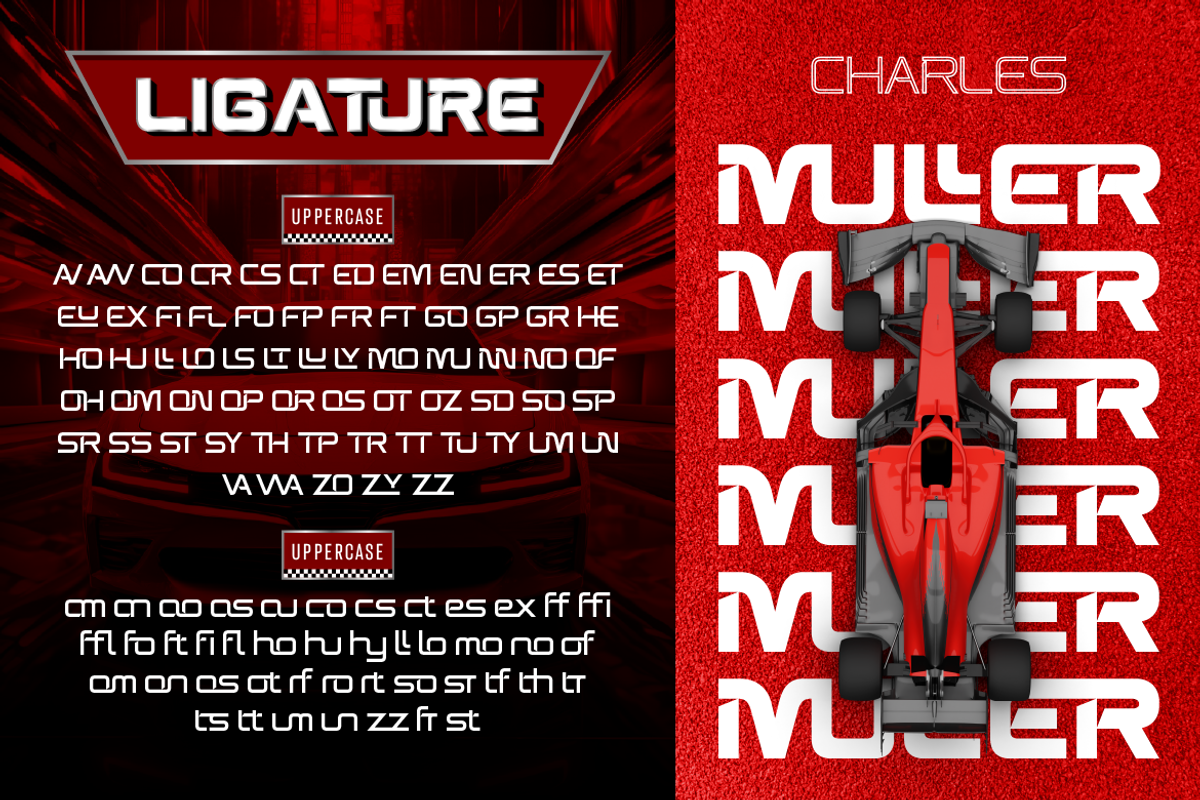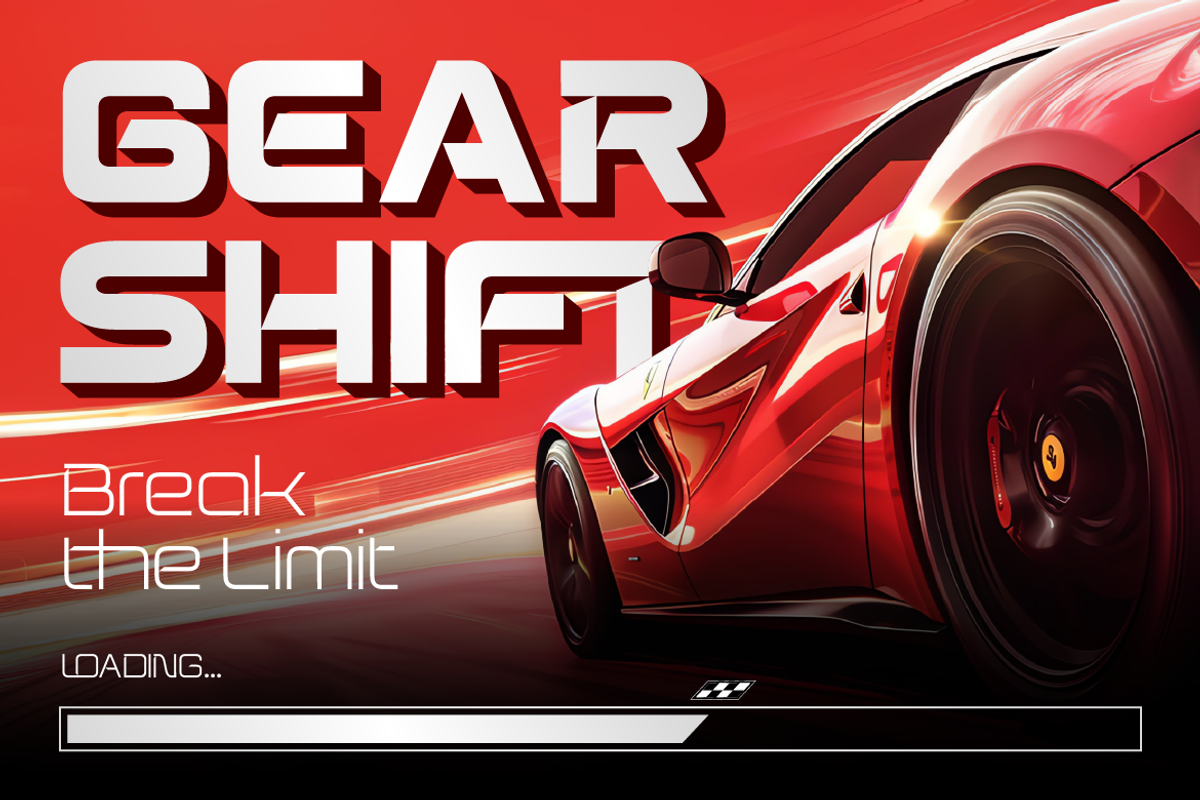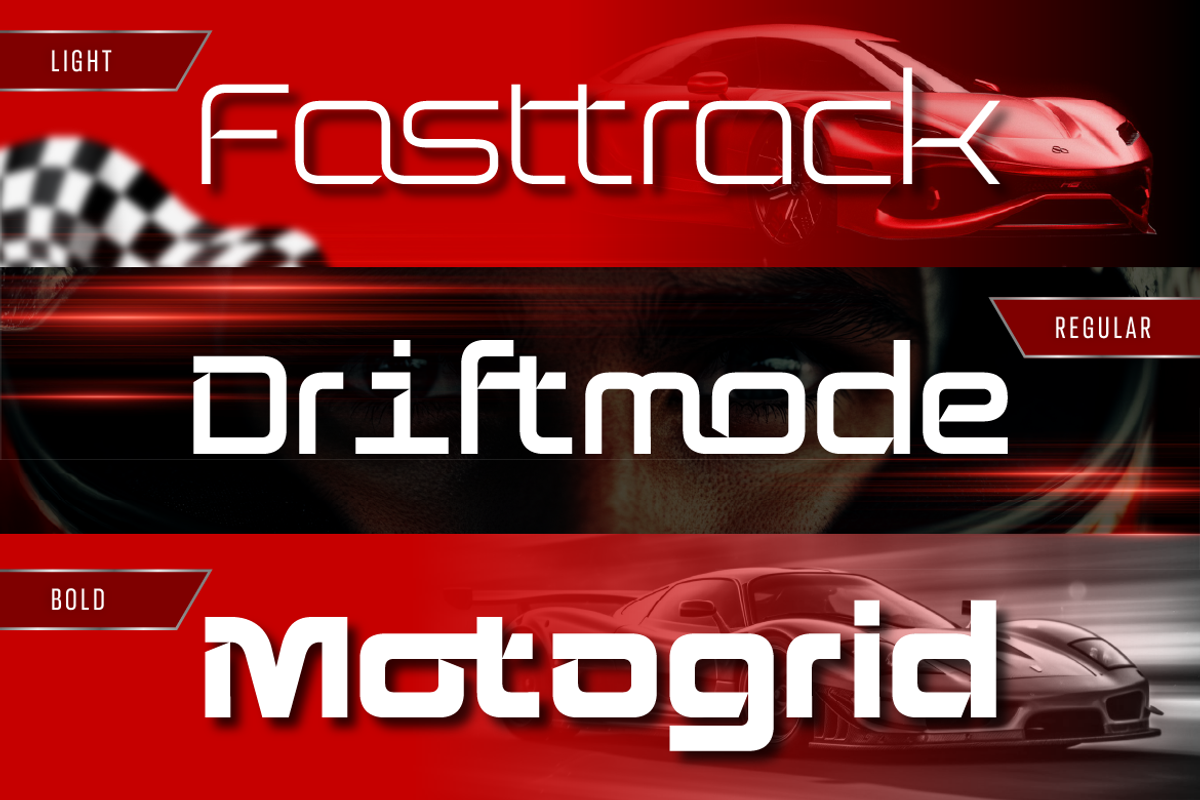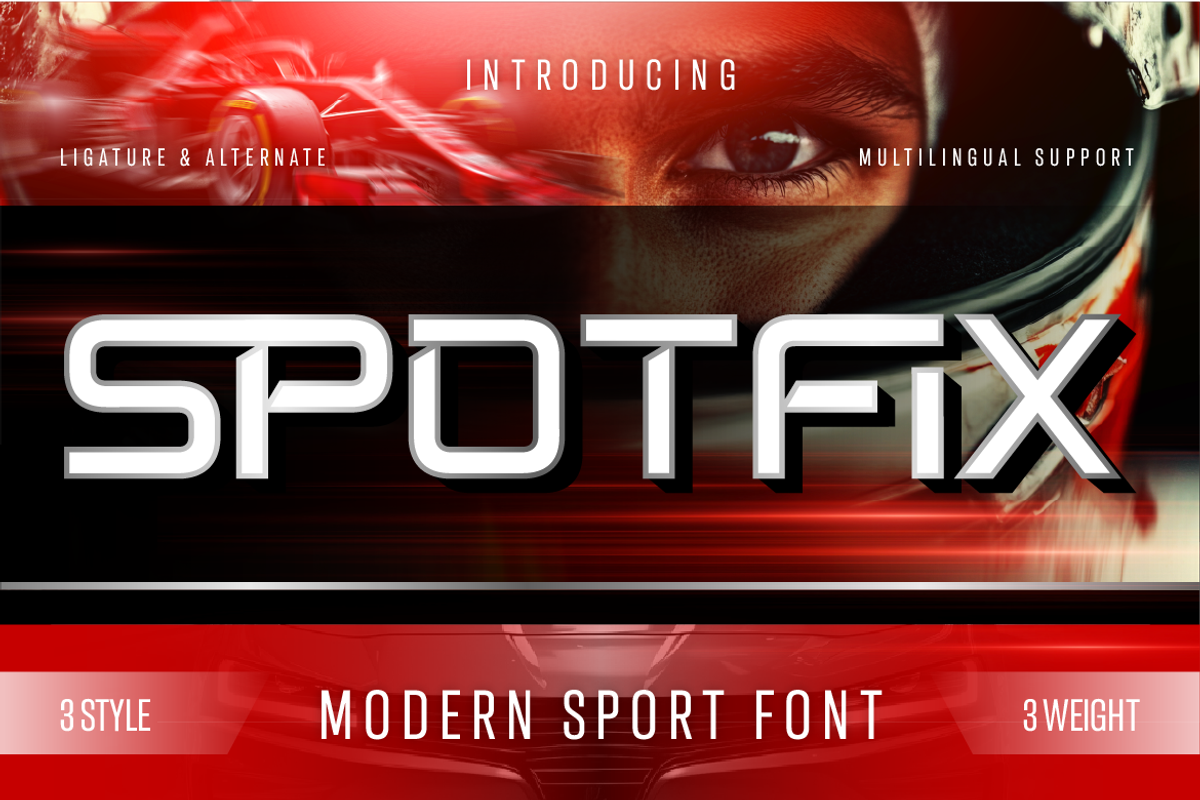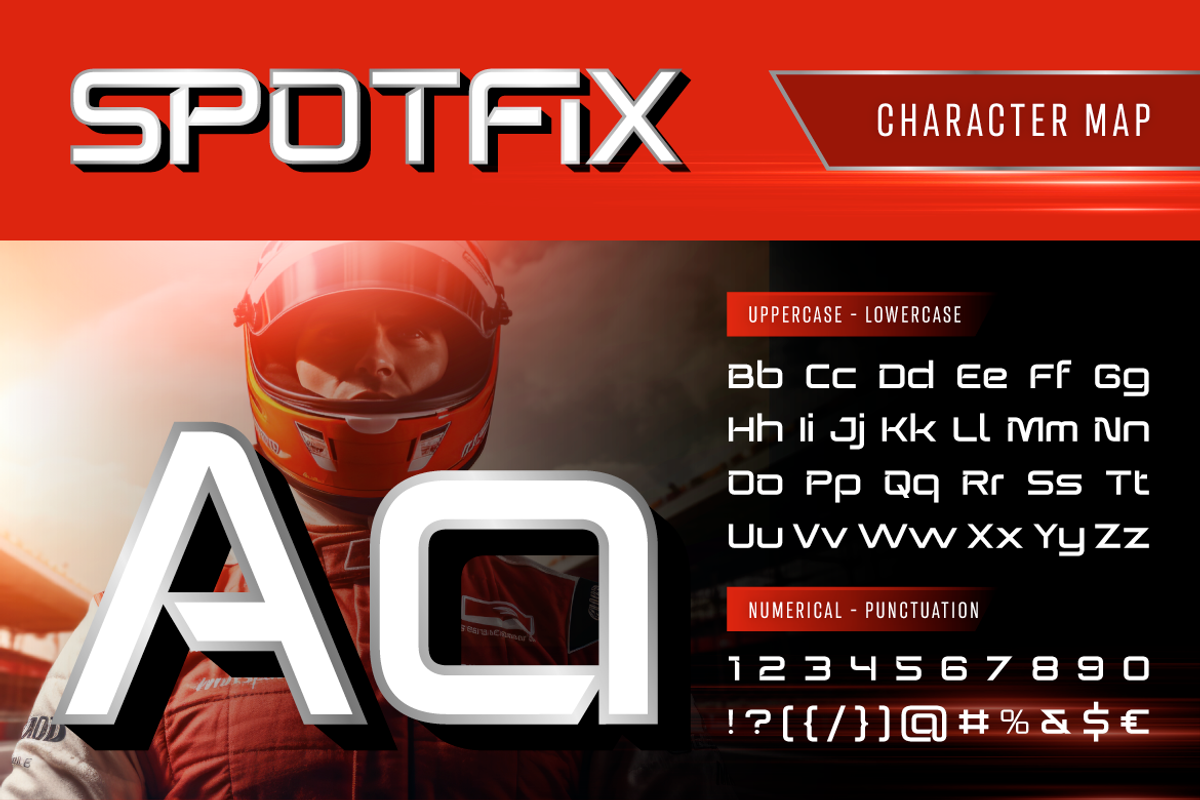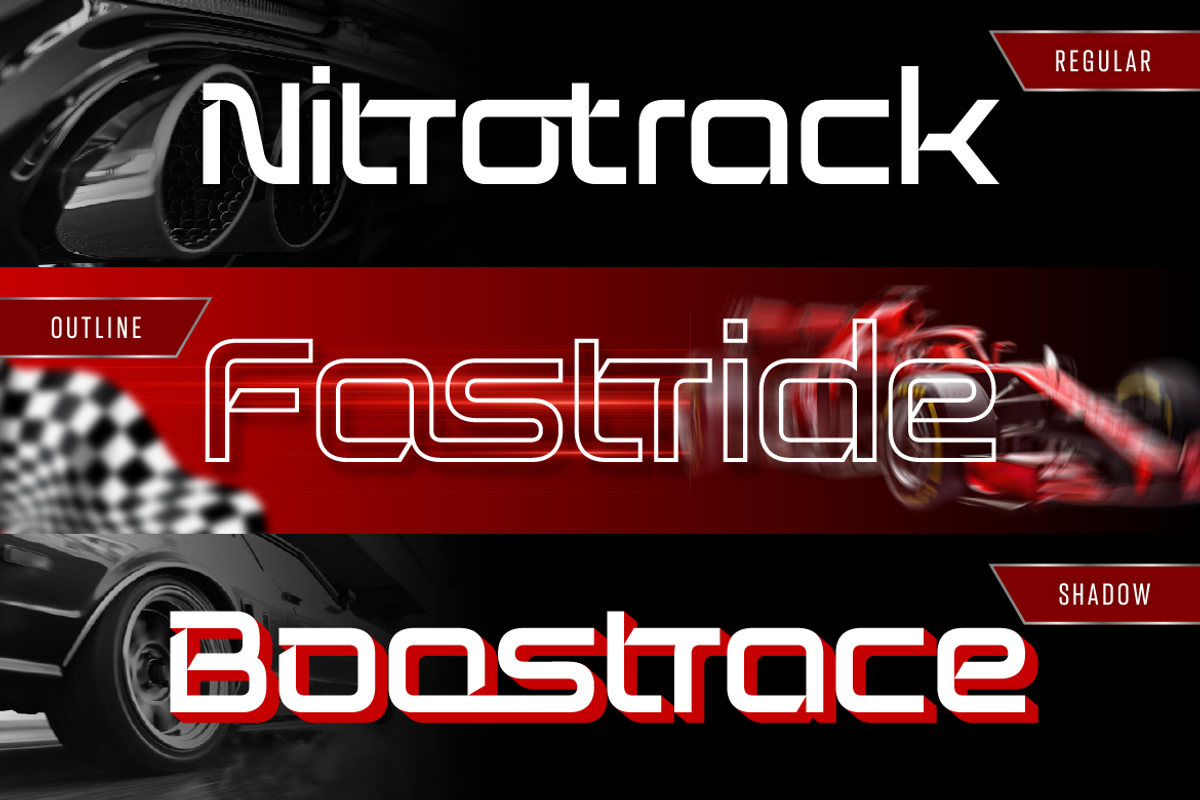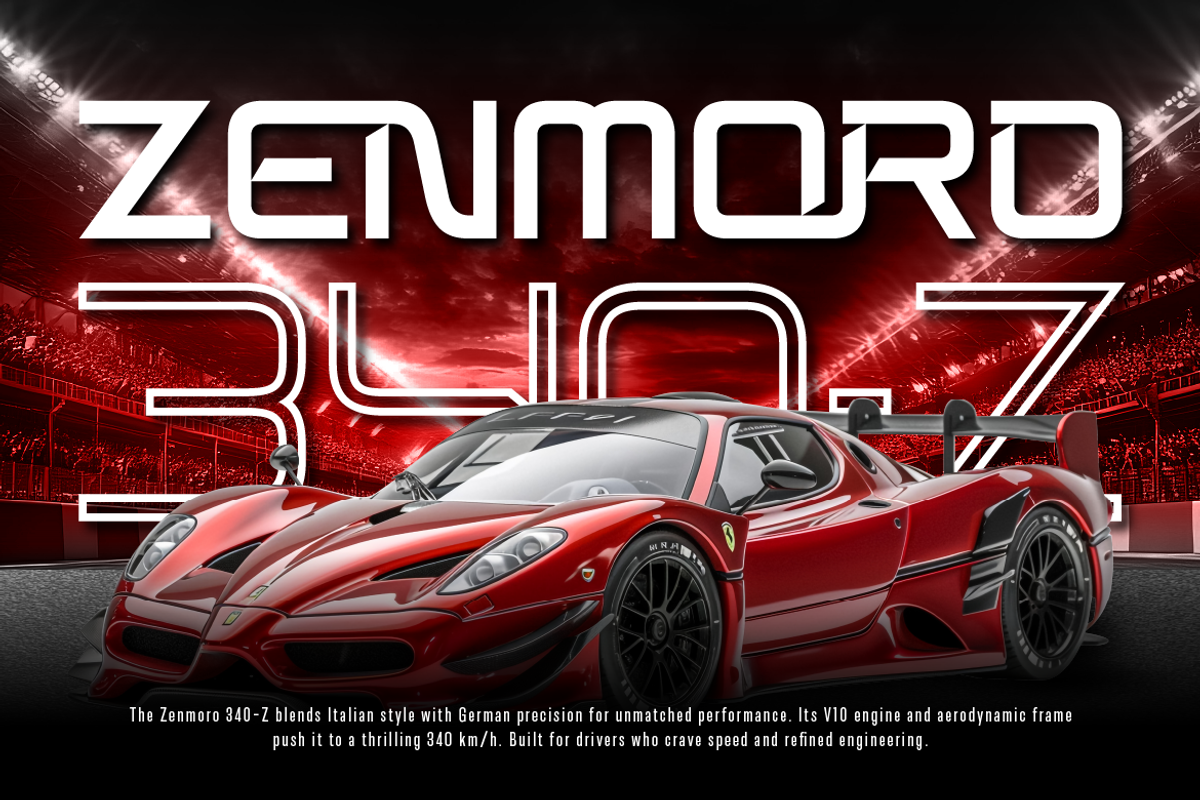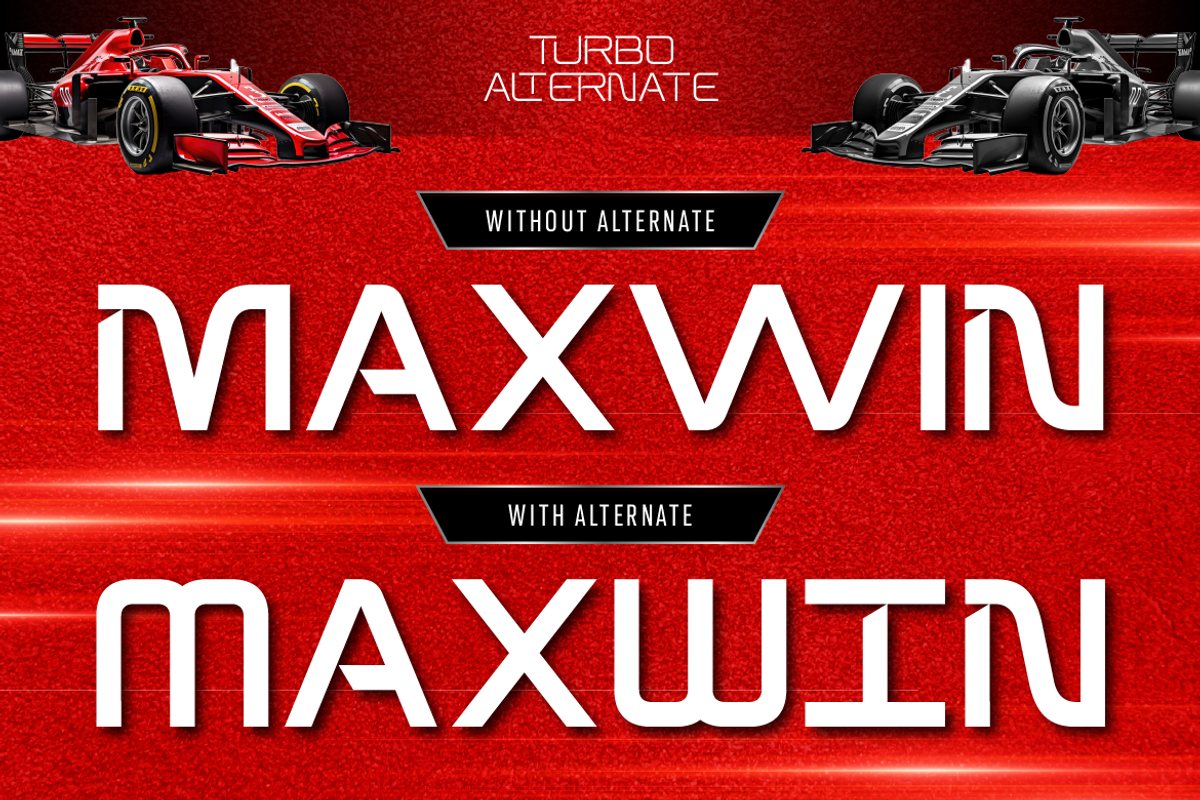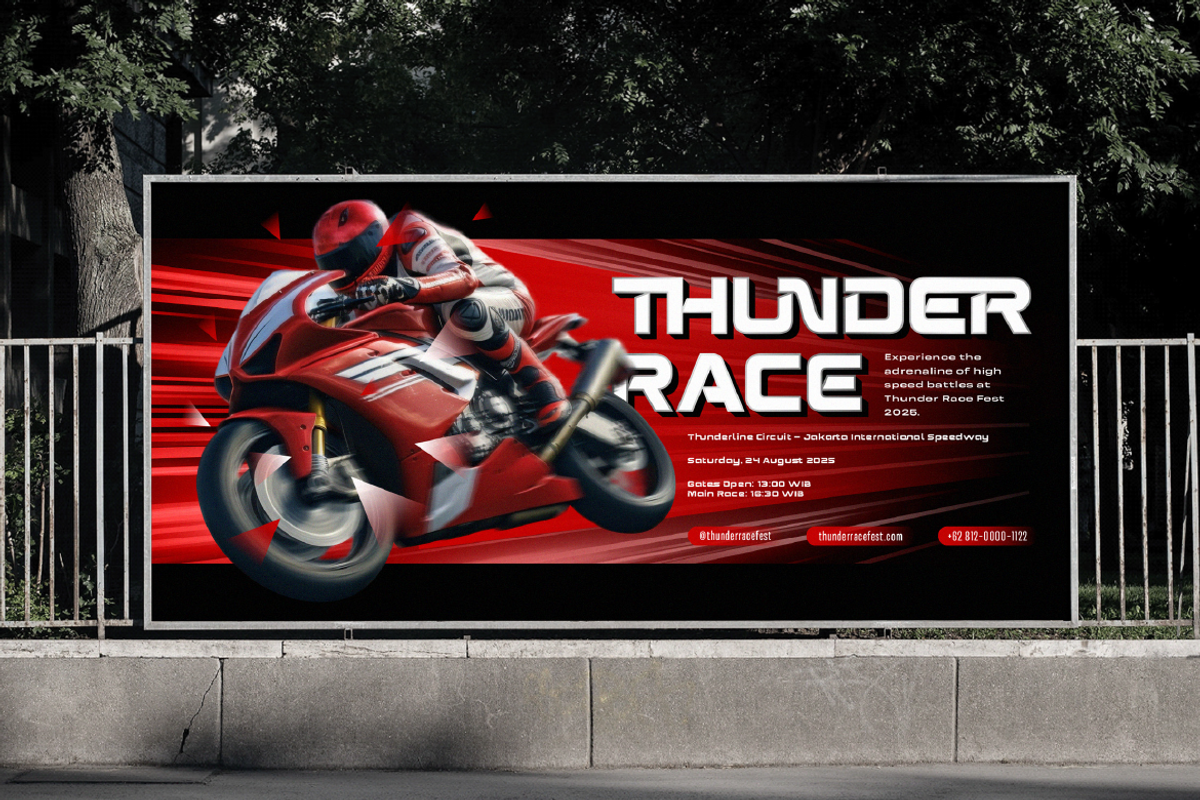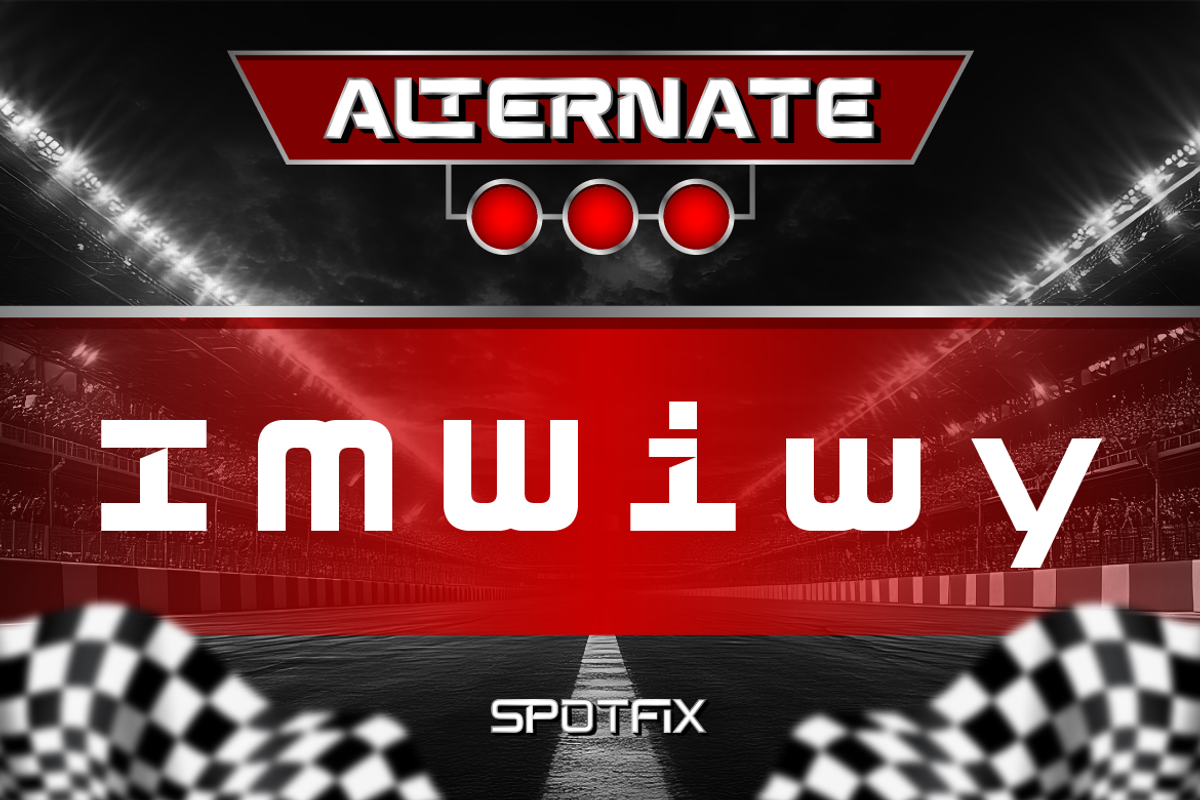
Spotfix - Modern Sport Display Font
Spotfix is a modern sport display font built for speed, strength, and sharp visual impact. This typeface delivers a bold, futuristic look that instantly grabs attention. Designed with clean geometric forms and dynamic cuts, Spotfix feels fast, confident, and powerful. It works perfectly for sport branding, motorsport visuals, racing posters, game titles, apparel graphics, and any design that needs a strong competitive edge. Spotfix comes with multiple styles and weights, allowing you to create versatile layouts from clean and modern headlines to aggressive, high-energy typography.
A - Z set (Uppercase & Lowercase All Caps)
Number
Spotfix Characters Map